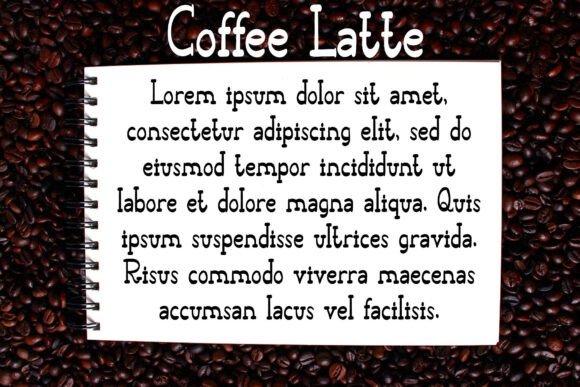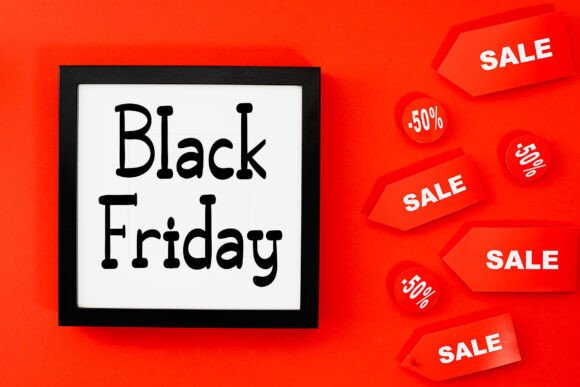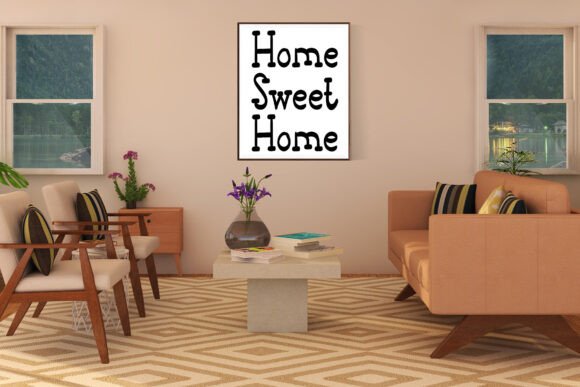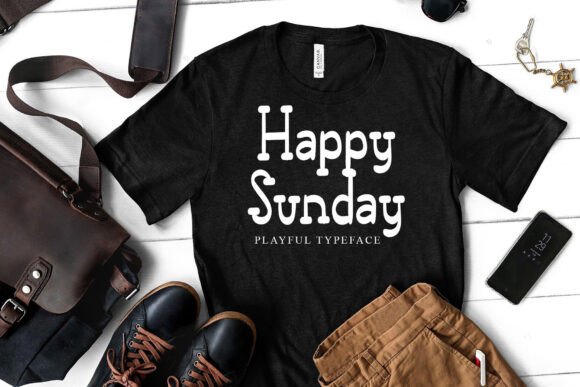
Introduction to Metric Font
Metric is a unique and elegant font.
Looks great on wedding invitations, greeting cards, billboards, logos, business cards, and any other design that requires a handwritten touch This font features varied baseline, created with a natural, hand-made touch.
Key Features of Metric Font